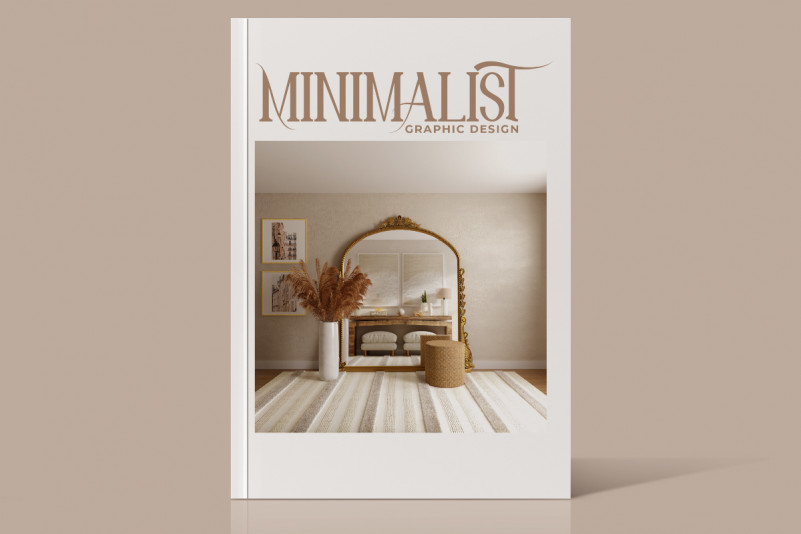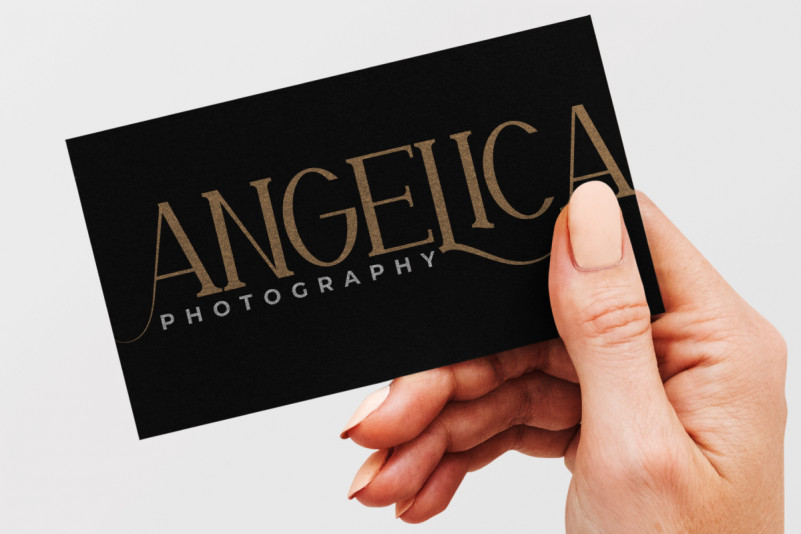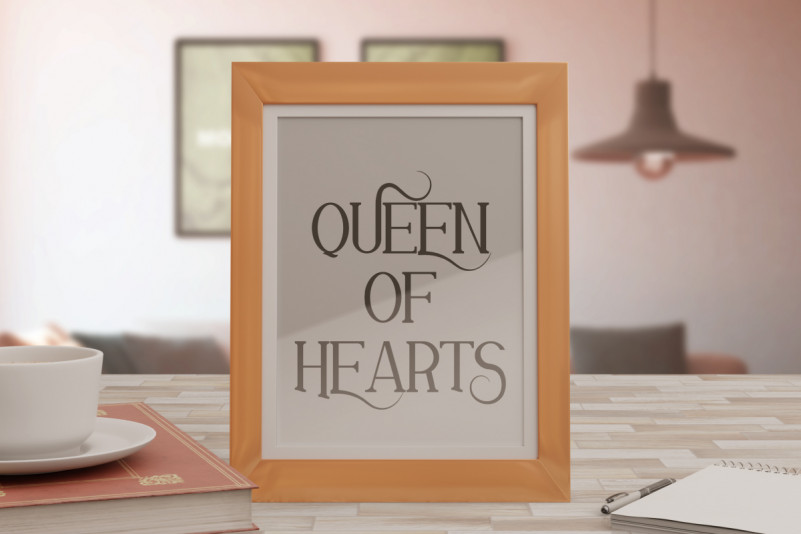
Thomson Font
Thomson Serif Font
This is a modern serif display font with unique style and authentic ligatures. The font was inspired from classic lettering poster. It has a unique style that will bring the personal touch effect to the design. It will works for wedding, branding, artist, make up, and any other things. Thomson includes full set of Uppercase and Lowercase Basic Characters, Numerals and Punctuation. The font will also works for outdoor, fashion products, camping, adventure style. The font is perfect for many projects, headlines, logos, poster, tittle, products, etc